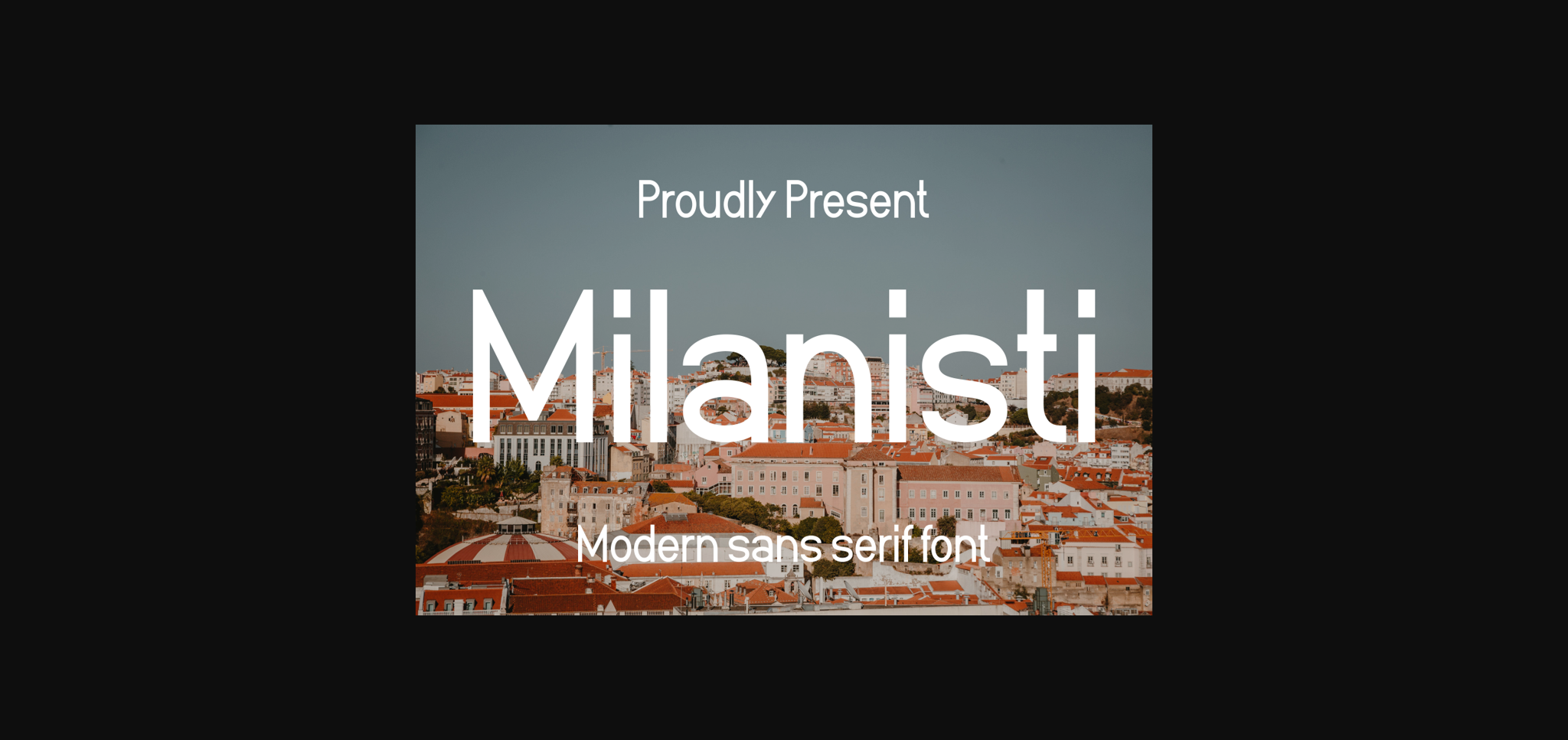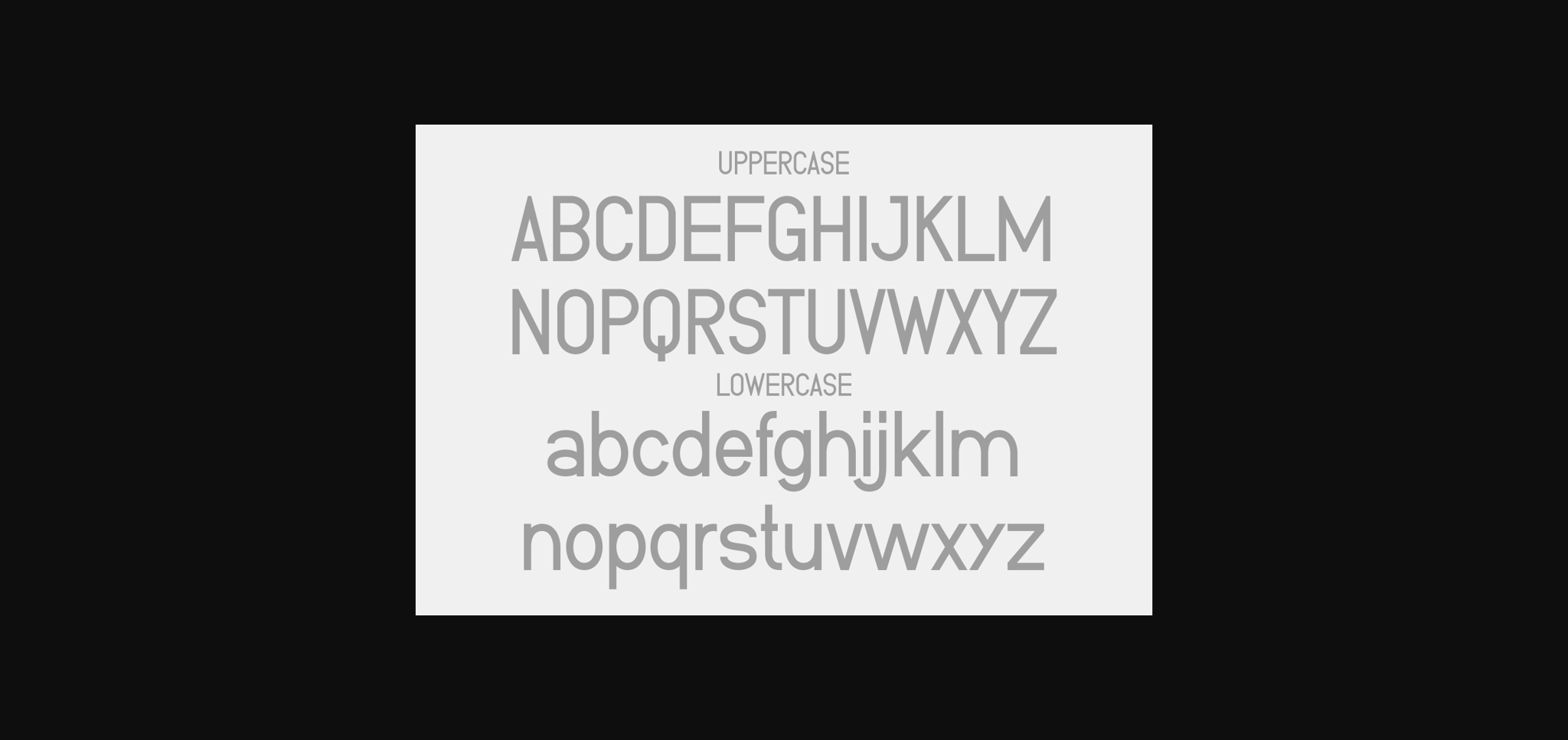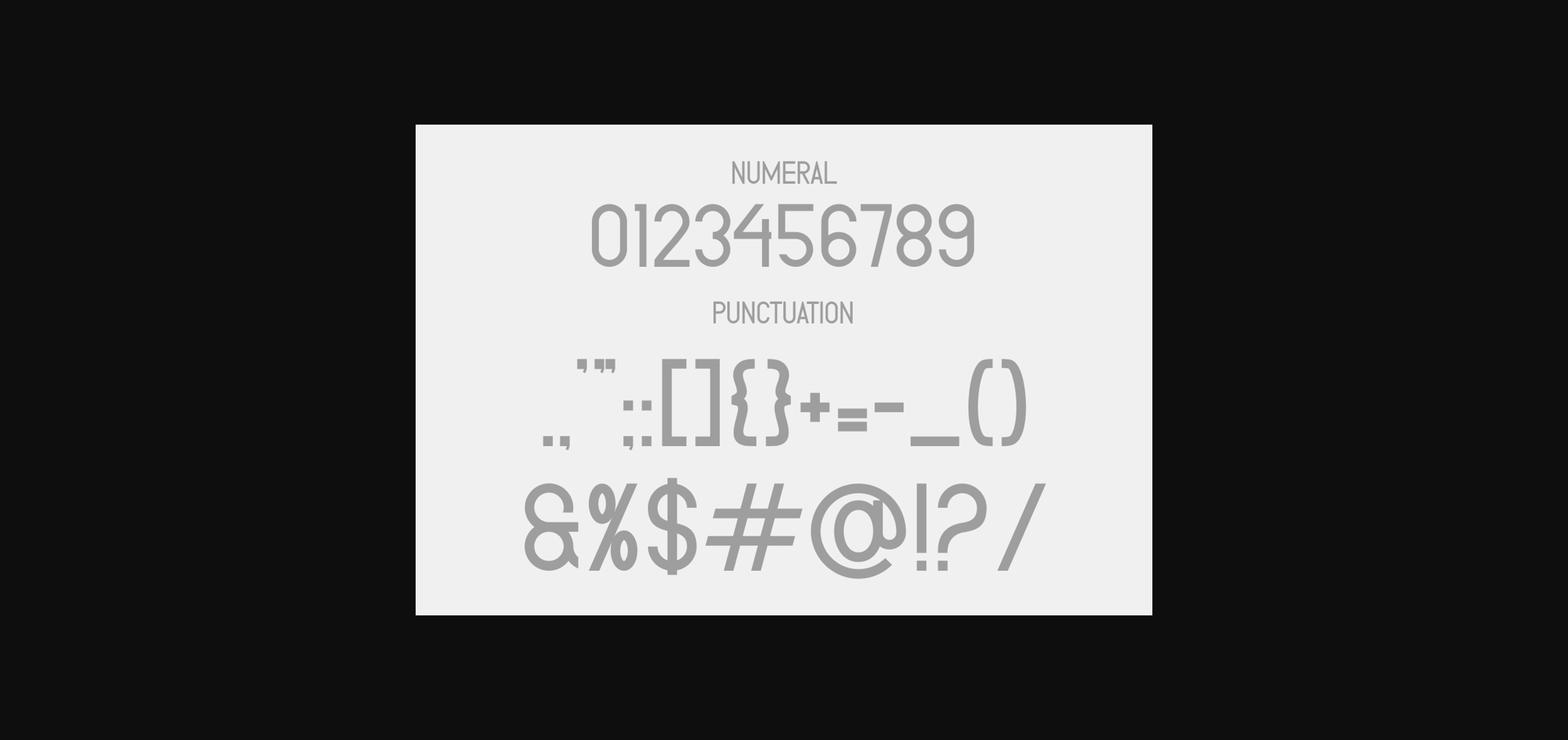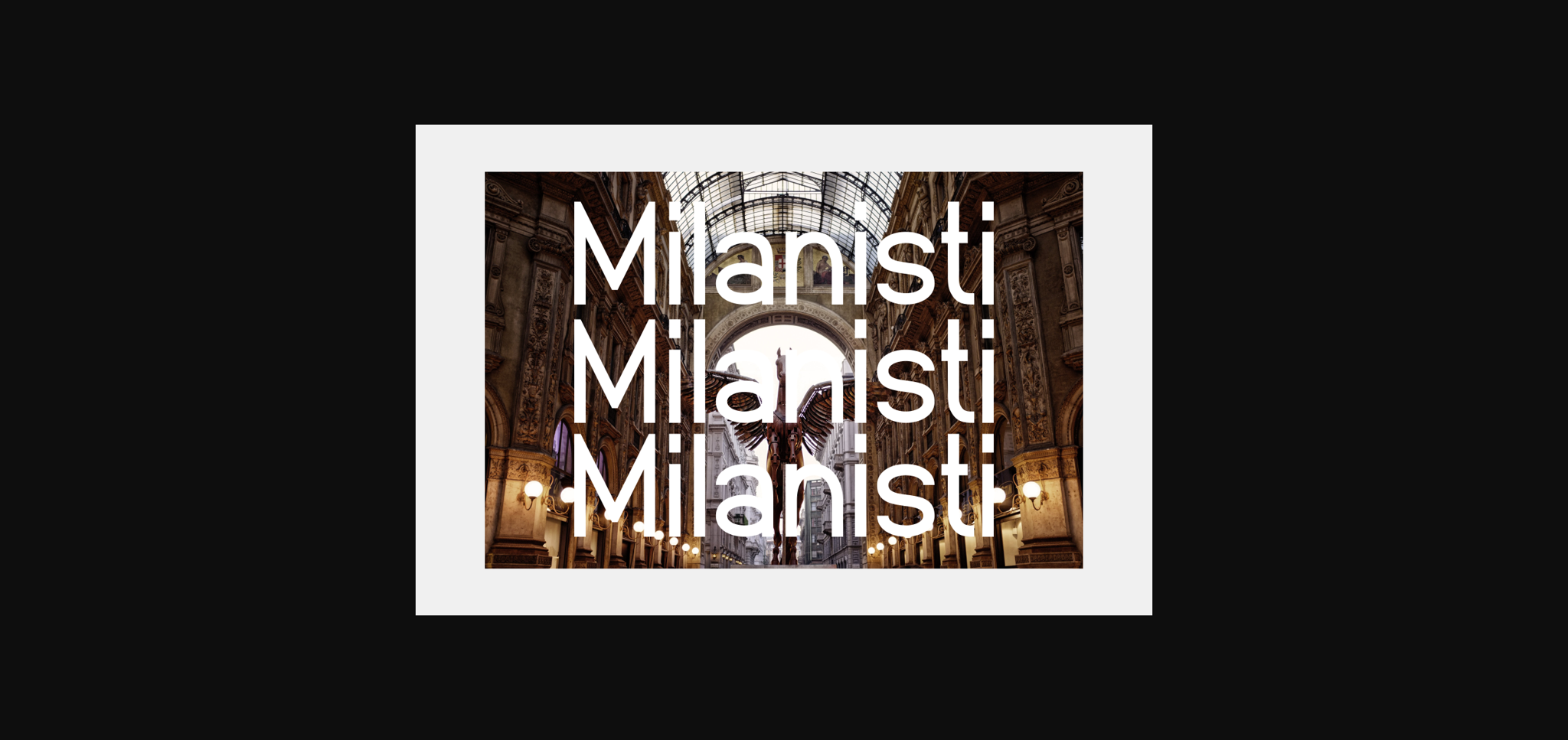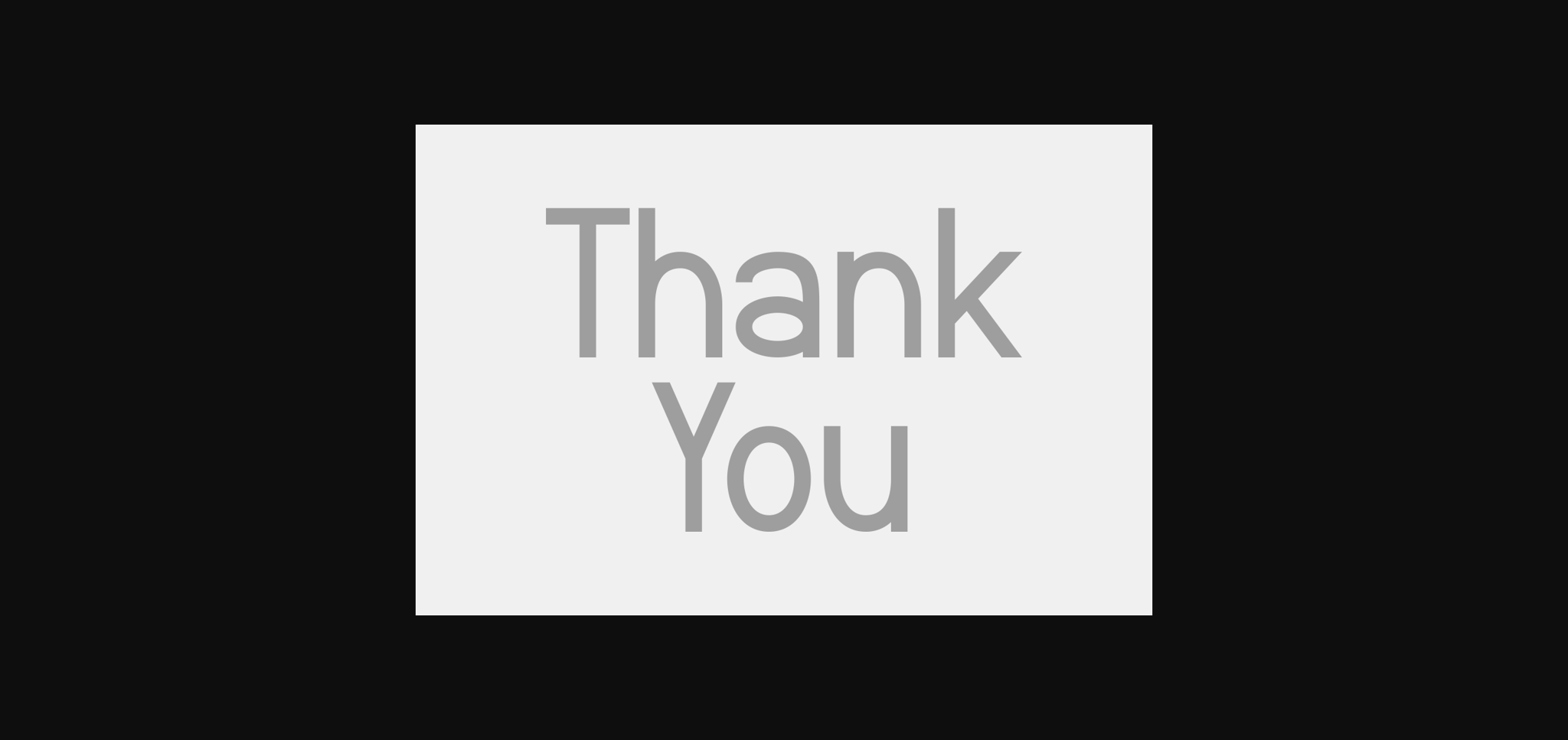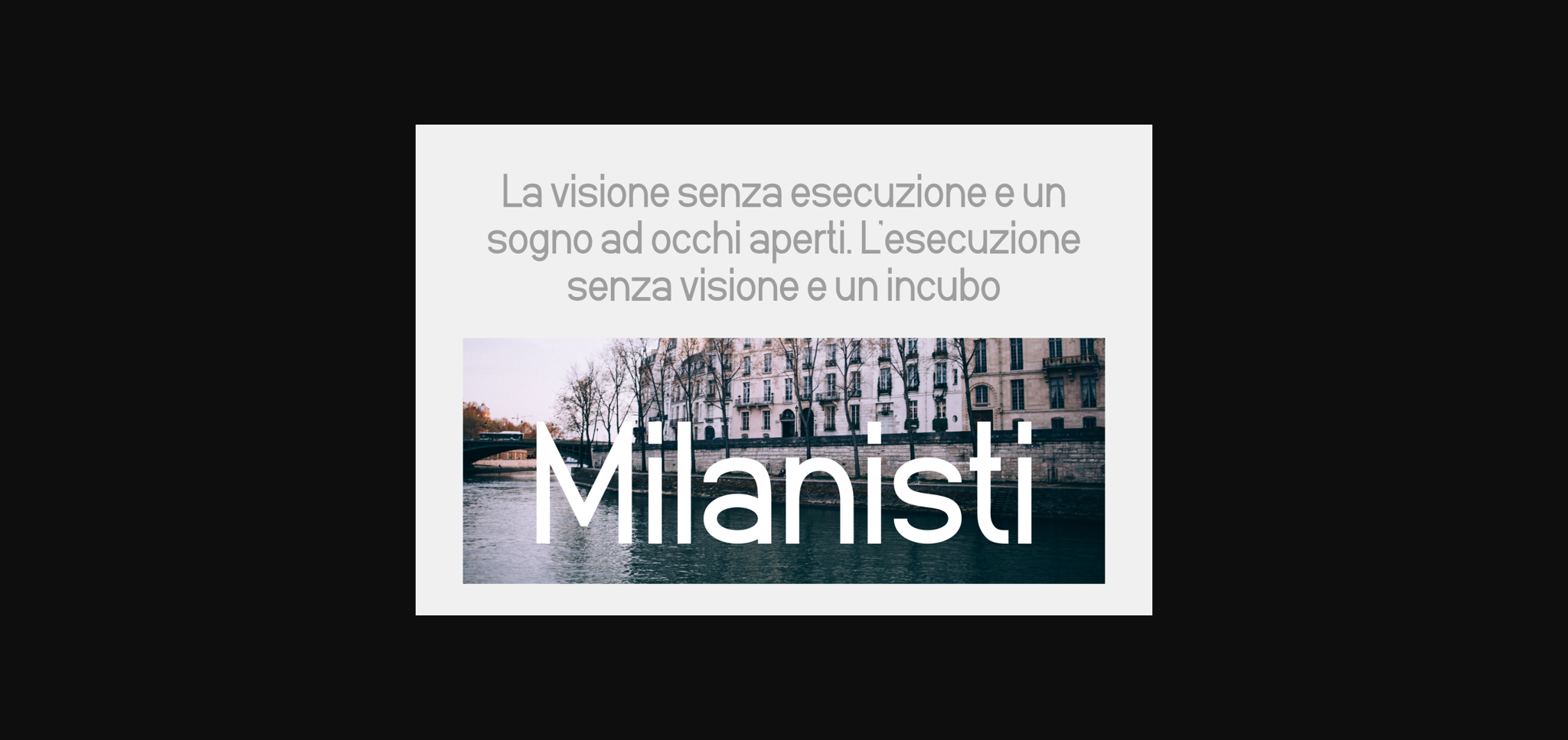
Milanisti Font
About Milanisti Font
**Milanisti** is a super thick typeface with more traditional letter shapes, making it perfect for creating (or recreating) the concise look of film poster production credits.